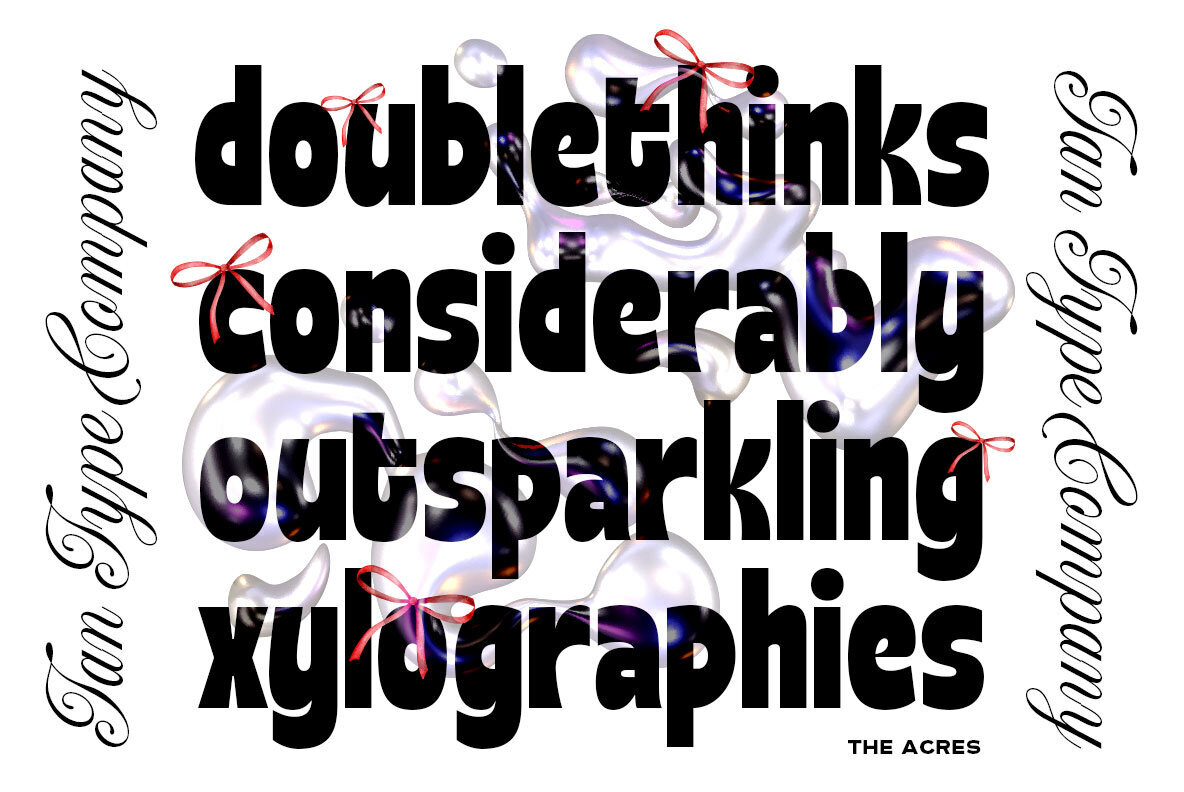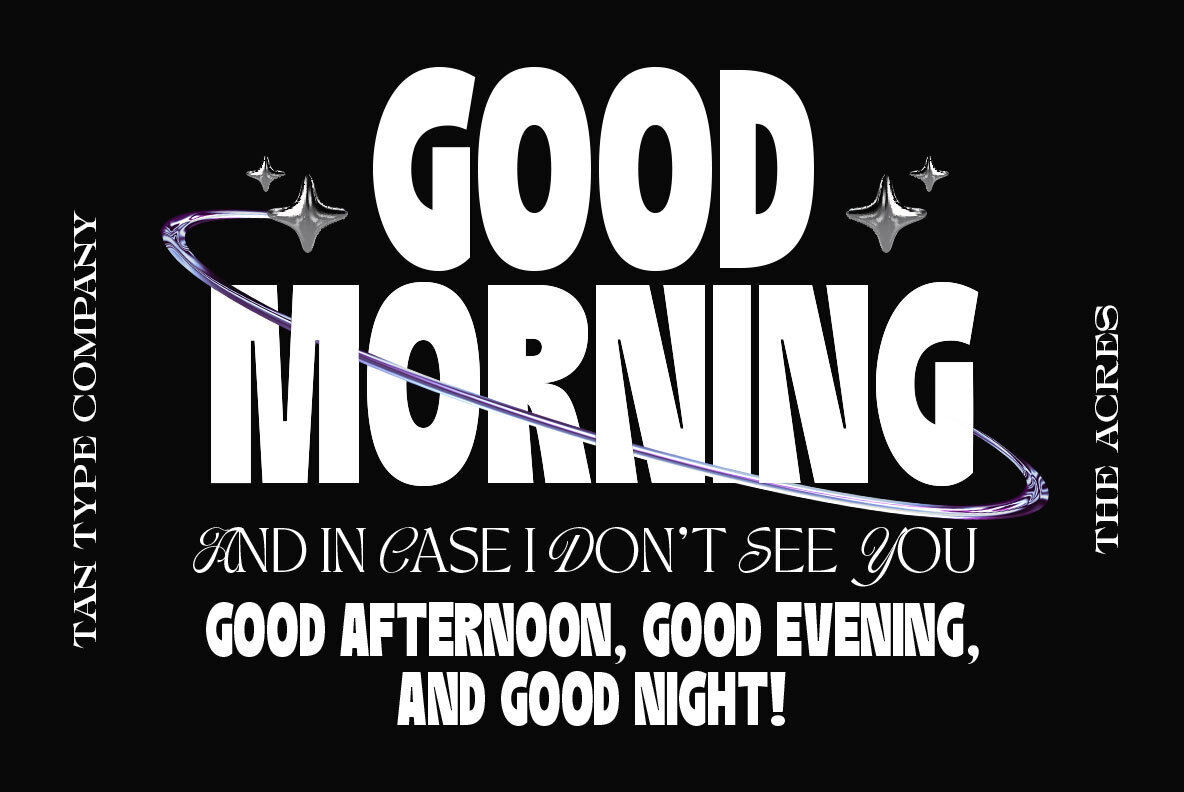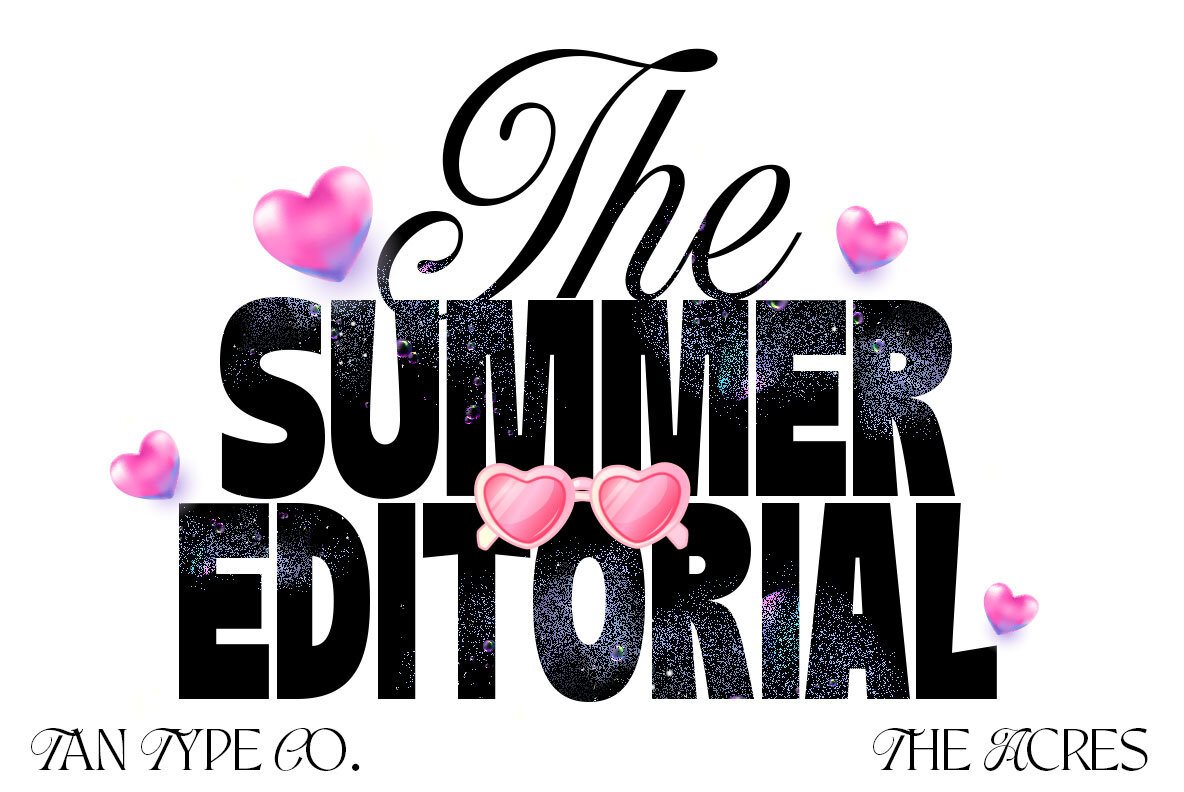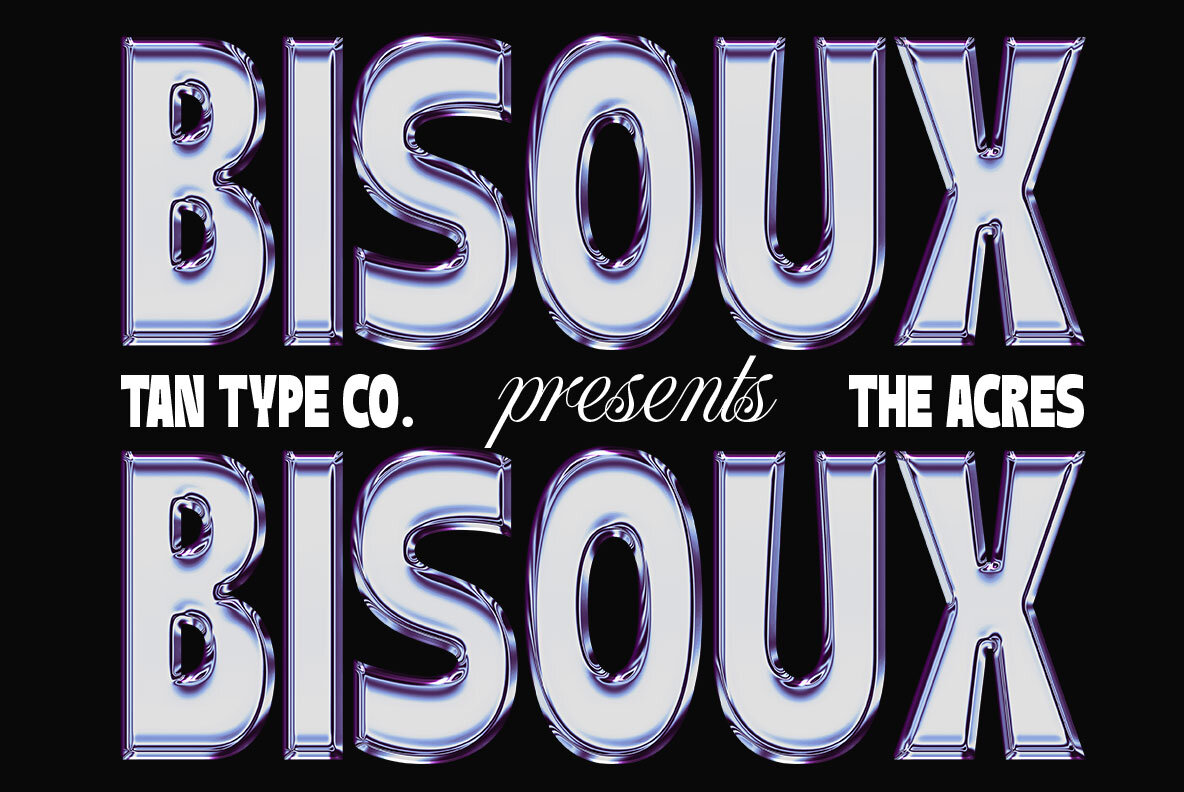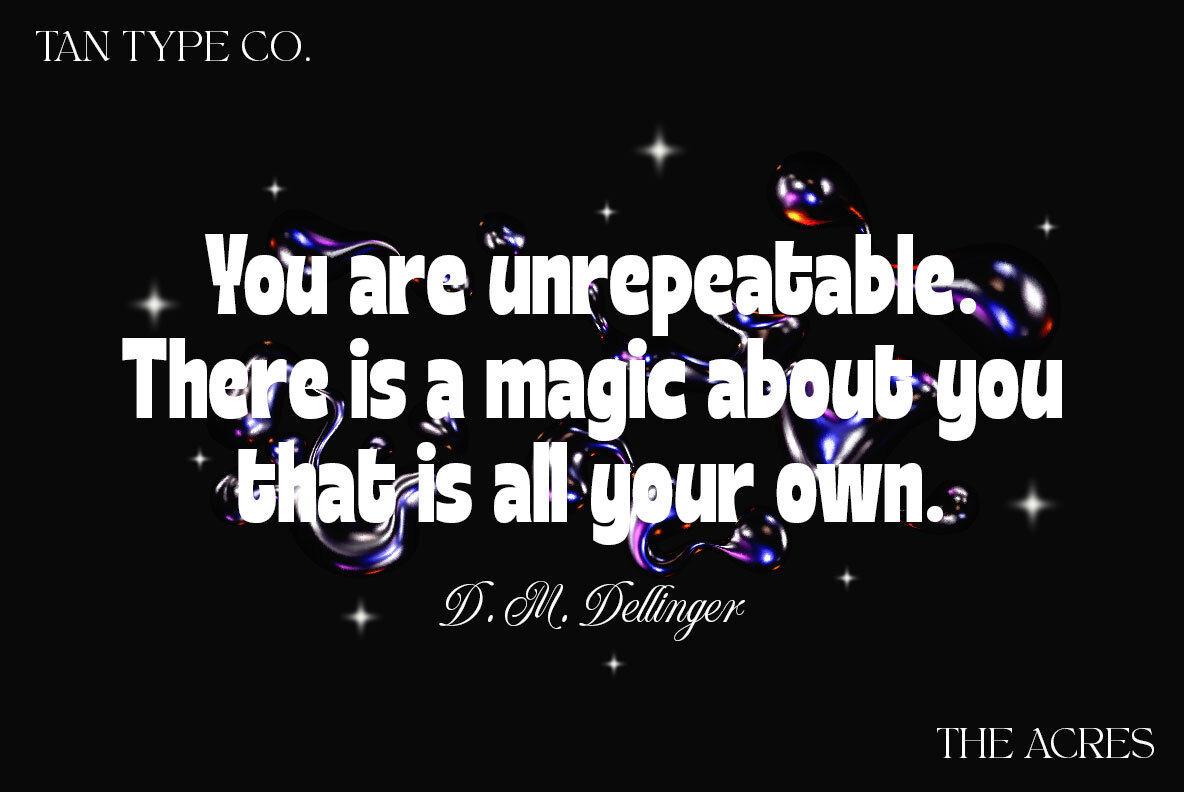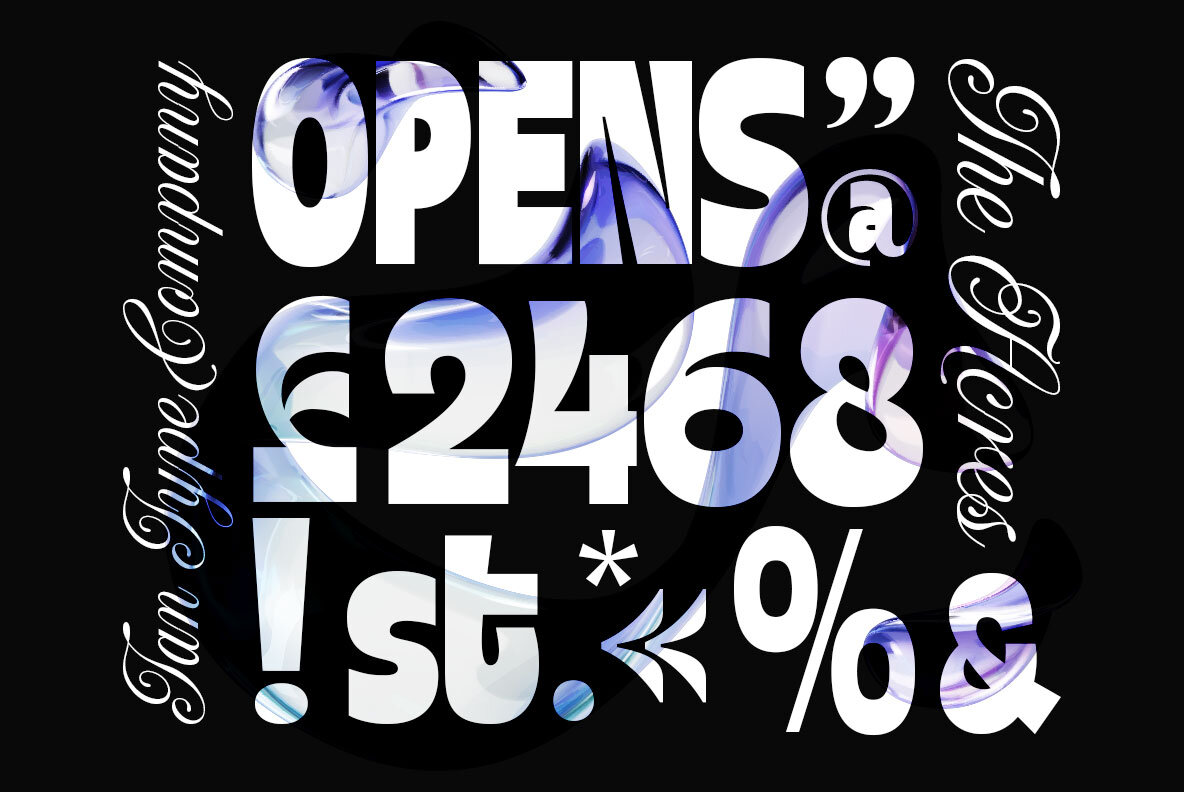
Tan The Acres Font
TAN THE ACRES Regular
This bold sans-serif font is modern and geometric, making it perfect for clean, minimalist designs. Its strong and blocky appearance is ideal for headlines, branding, advertising, posters, and logos. This font excels in projects requiring high legibility and professional aesthetics, suitable for both print and web design.